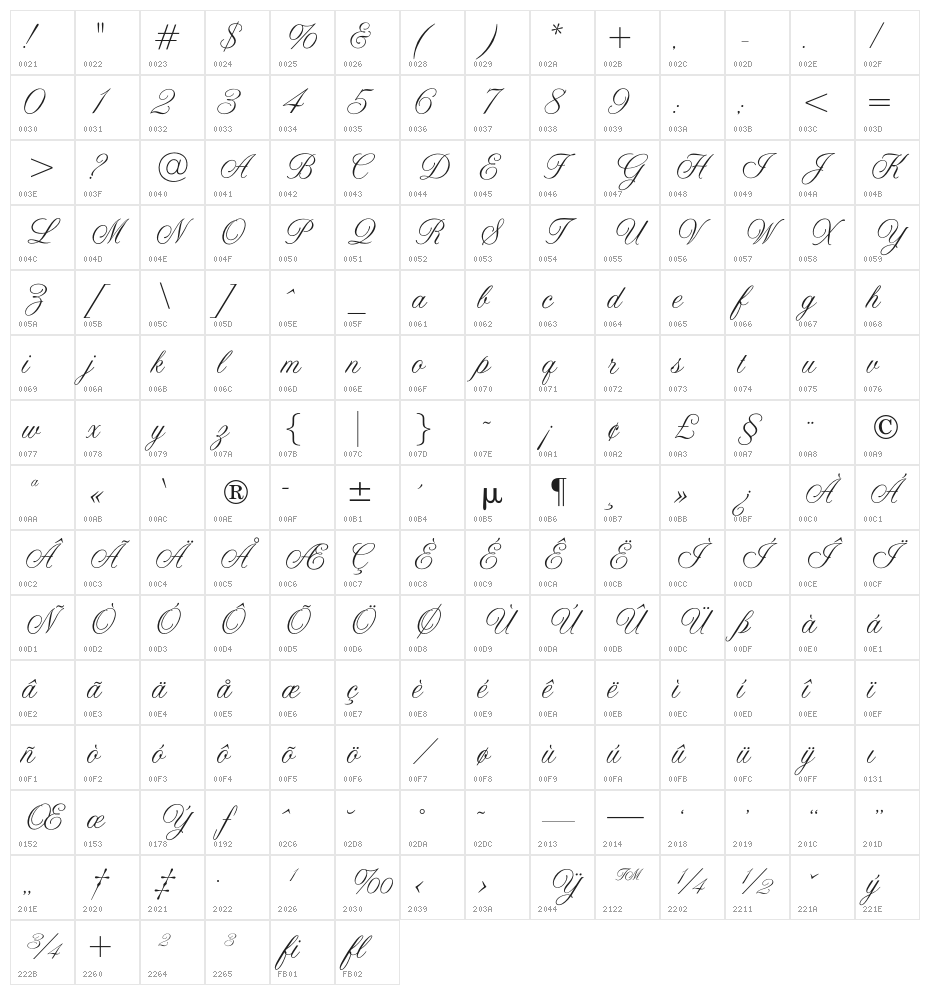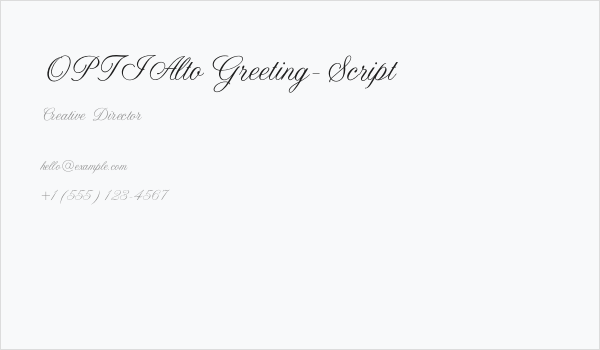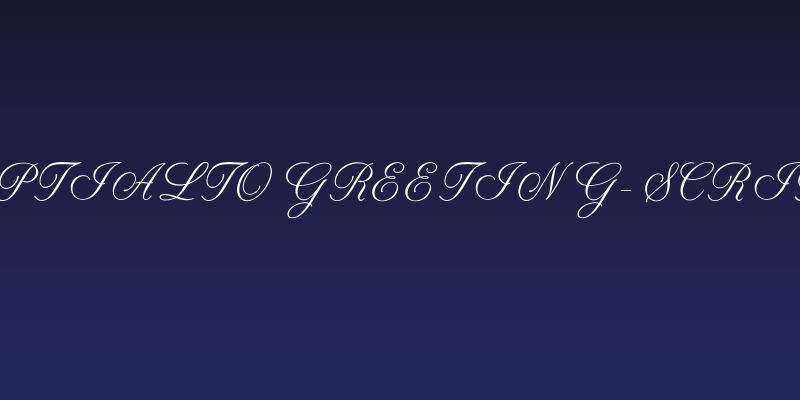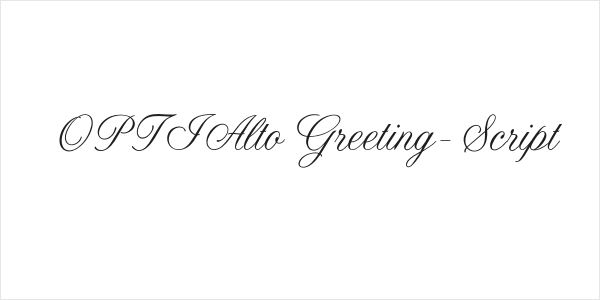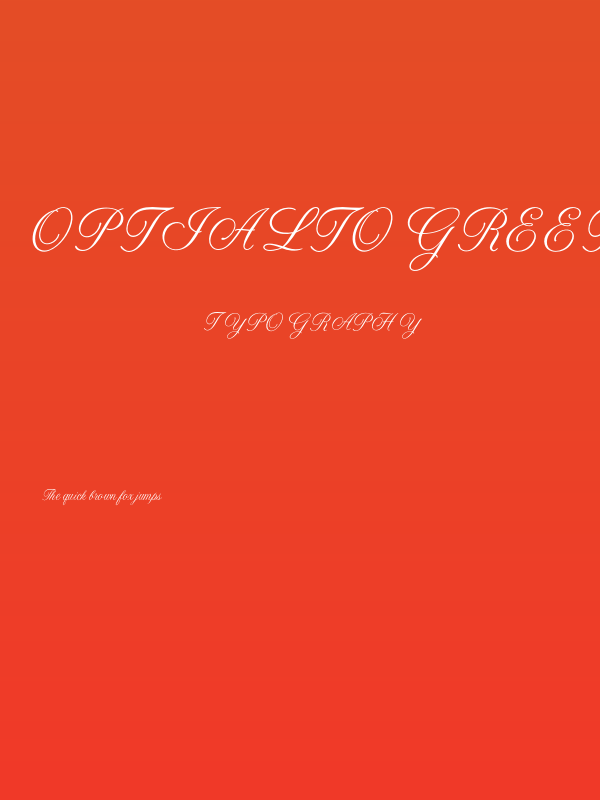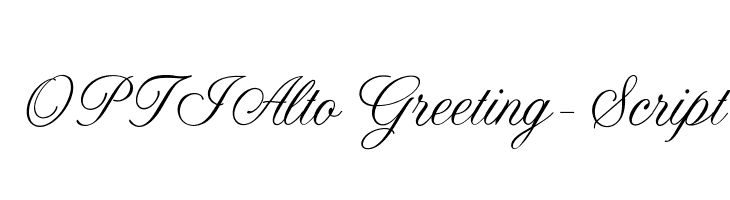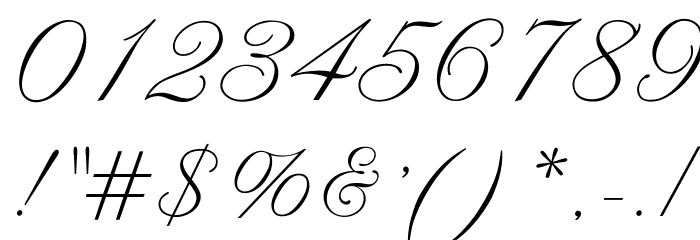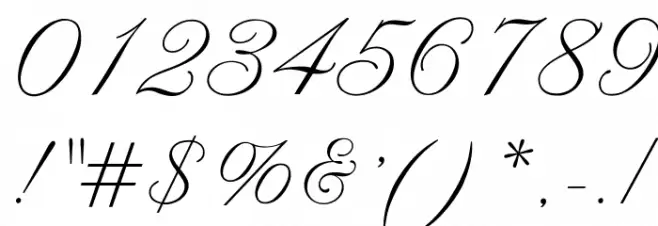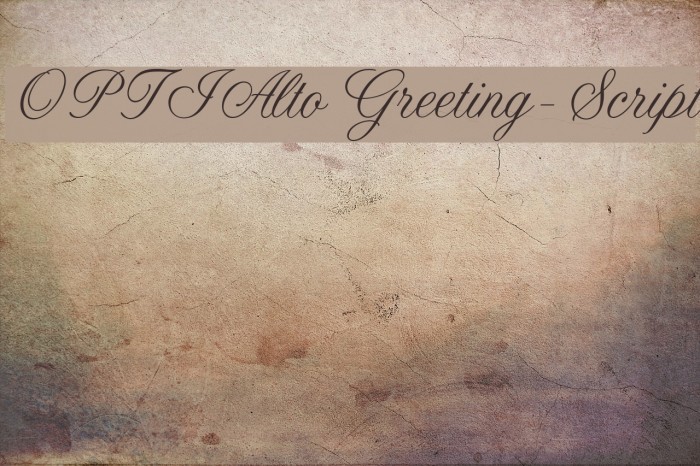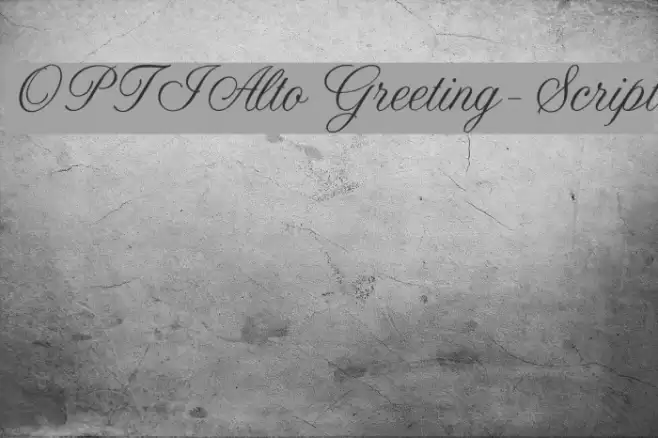
OPTIAltoGreeting-Script Font
OPTIAltoGreeting-Script Description
This elegant script font features a flowing, cursive style with graceful loops and swashes. The uppercase letters are ornate, with intricate curves that give a sense of sophistication and formality. The lowercase letters maintain a consistent slant, enhancing the fluidity and continuity of the text. Numbers and special characters are designed with the same attention to detail, ensuring a cohesive look across all elements. The font's delicate strokes and high contrast between thick and thin lines make it ideal for decorative purposes.
| Overall Style | Elegant, Formal |
| Use Case | Logos, Invitations, Decorative text |
| Proposed Projects | Ideal for wedding invitations, greeting cards, elegant branding, and formal event programs. |